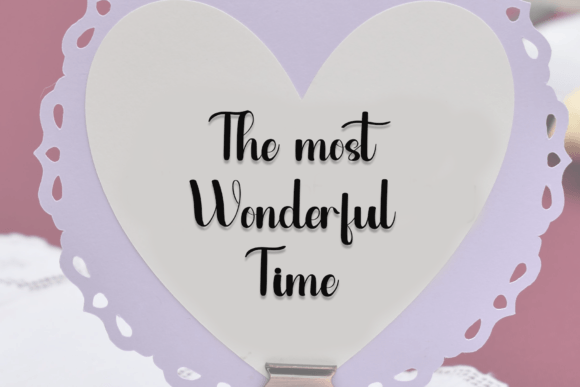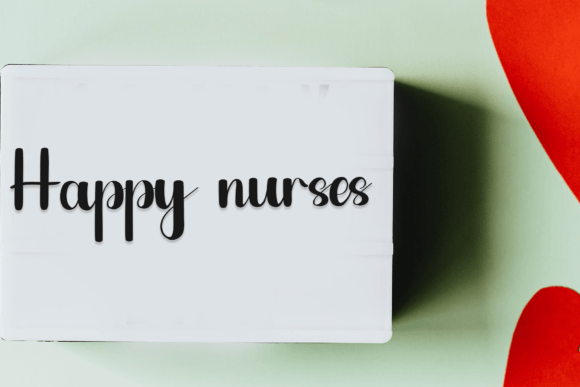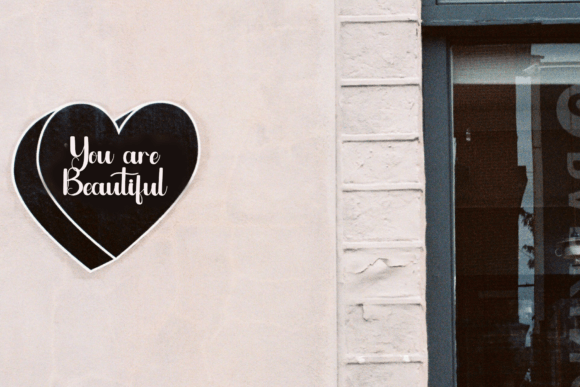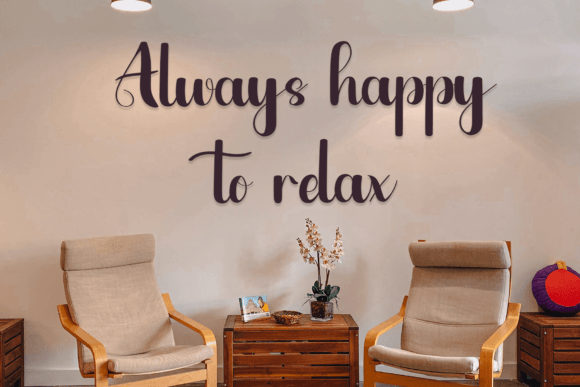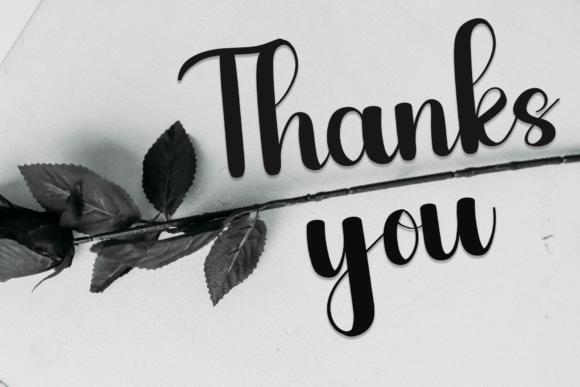
Discover the Charm of Have Heart Font: Elevate Your Designs with Elegance
Are you on the hunt for a font that exudes elegance, sophistication, and a touch of whimsy? Look no further than the Have Heart Font, a stunning handwritten typeface that is sure to capture your heart. With its unique blend of classic charm and modern flair, this beautiful font is perfect for designers, crafters, and anyone looking to add a personal touch to their projects.
The Essence of Have Heart Font
Have Heart Font is a meticulously crafted handwritten font that boasts an elegant touch, making it an excellent choice for a wide range of design applications. Its incredibly distinct and timeless style sets it apart from other fonts, allowing you to create spectacular designs that are sure to leave a lasting impression.
Key Features of Have Heart Font
- Handwritten Elegance: Have Heart Font features a beautiful, handwritten style that adds a touch of warmth and personality to any design.
- Distinctive Style: Its unique and timeless style makes it perfect for creating designs that stand out from the crowd.
- Elegant Touch: The font’s elegant touch makes it suitable for a wide range of design applications, from wedding invitations to branding and packaging.
- Versatile: Have Heart Font is perfect for use in various design projects, including digital and print materials.
Have Heart Font is a dream come true for designers and crafters looking to add a personal touch to their projects. Whether you’re creating:
- Wedding Invitations: Add a touch of romance and elegance to your wedding invitations and stationery.
- Branding and Packaging: Elevate your brand with a unique and memorable font that reflects your personality and style.
- Digital and Print Materials: Use Have Heart Font to create stunning social media graphics, blog posts, and print materials that capture your audience’s attention.
- Crafting and DIY Projects: Add a personal touch to your crafting and DIY projects, such as handmade cards, gift tags, and scrapbooking.
Why Choose Have Heart Font?
- Unique Style: Have Heart Font offers a unique and distinctive style that sets it apart from other fonts.
- Elegant and Sophisticated: The font’s elegant touch makes it perfect for creating sophisticated and high-end designs.